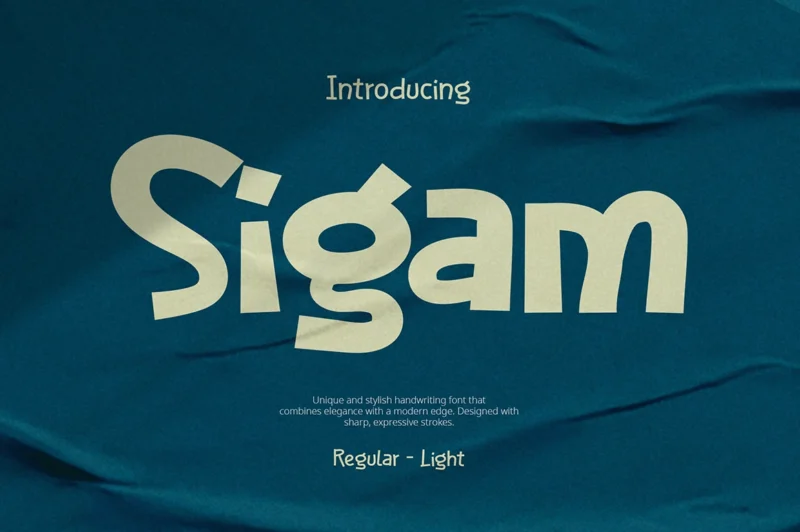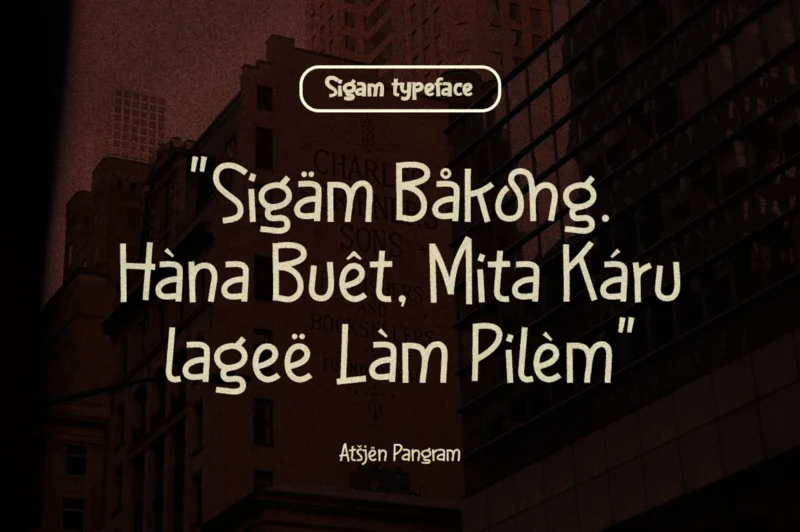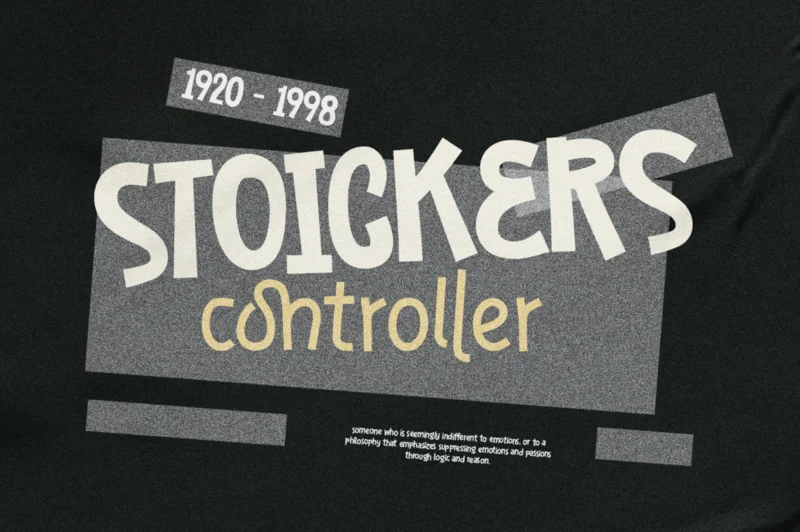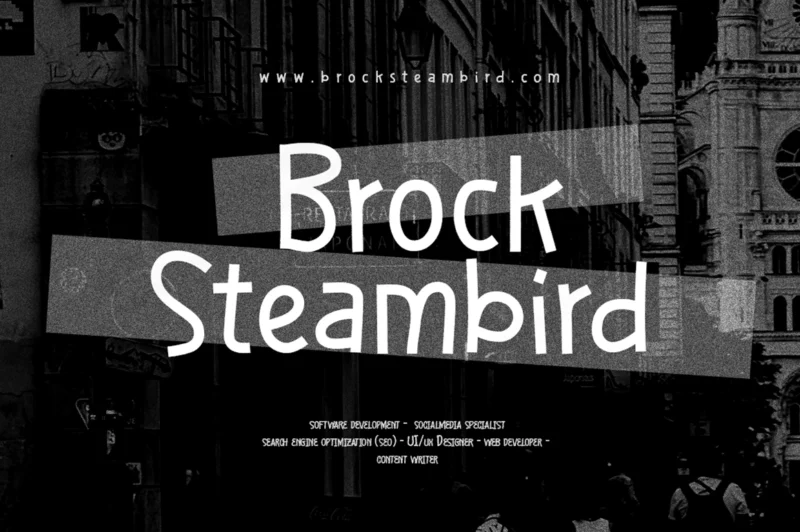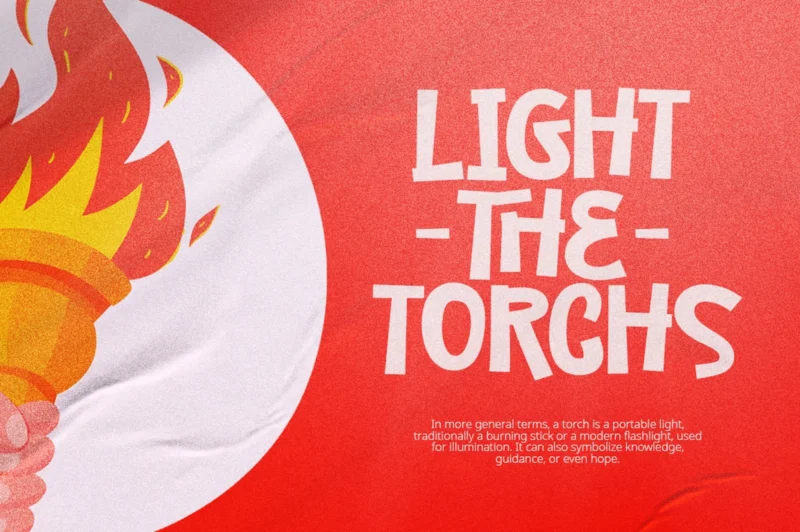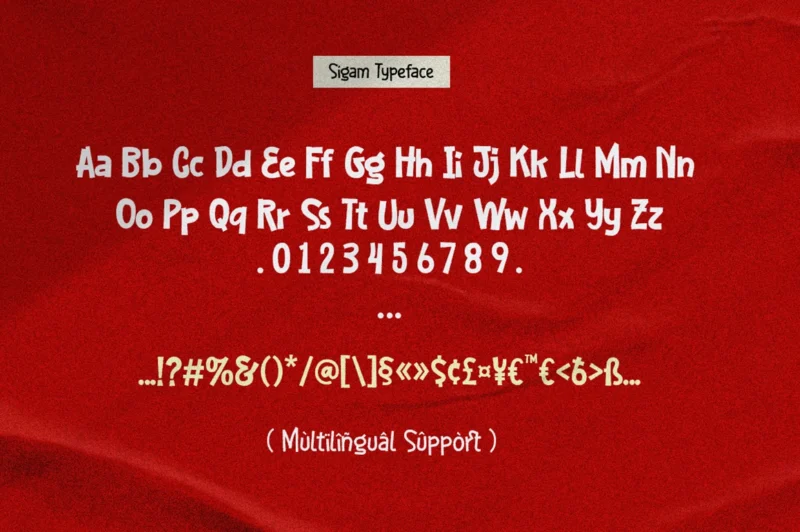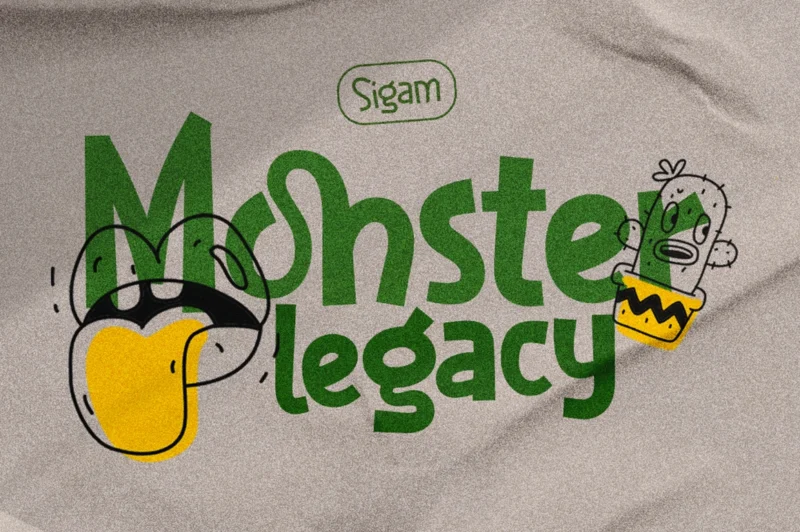
Sigam is a unique and casual handwriting font that combines elegance with a modern edge. Designed with sharp, expressive strokes, this font stands out with its distinctive personality and handcrafted feel. Sigam comes in two versatile styles—Regular and Light—allowing for flexible use across a variety of design needs.
Whether you’re working on editorial layouts, branding, or a bold logotype, Sigam delivers a refined yet impactful look. Its dynamic character makes it ideal for projects that call for a personal, artistic touch while maintaining a clean and professional appearance.
Features:
- Regular and Light Typefaces
- Basic Latin Glyphs
- Unique ligatures
- Numeral and Punctuation
- Currencies
- Multilingual Support